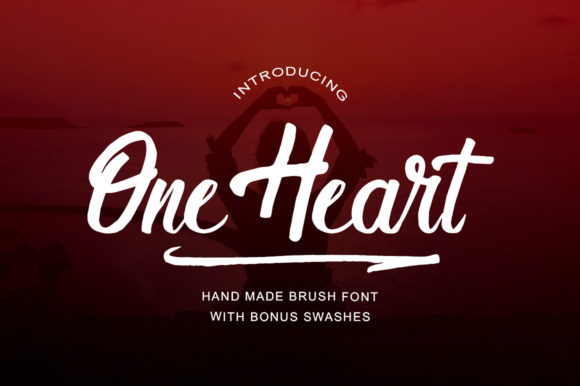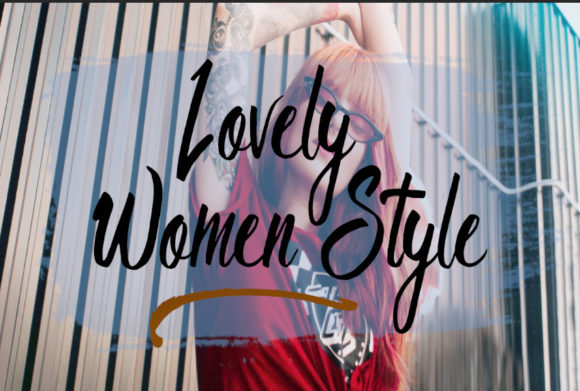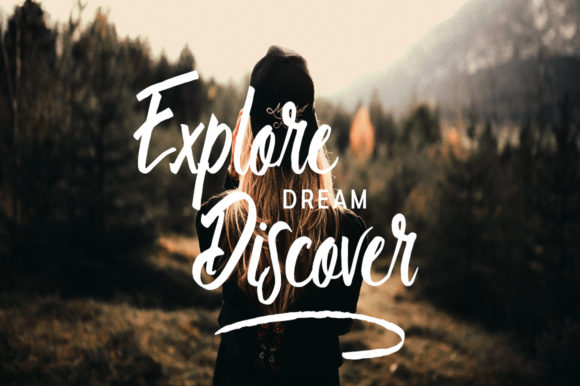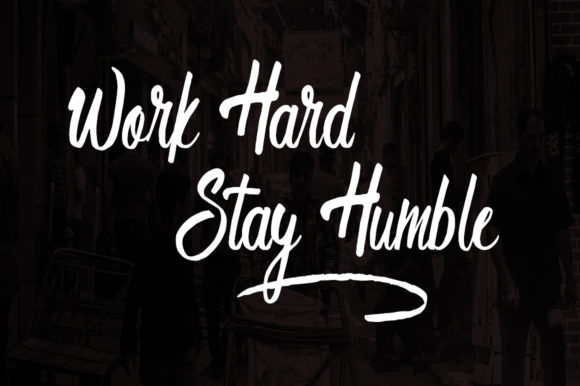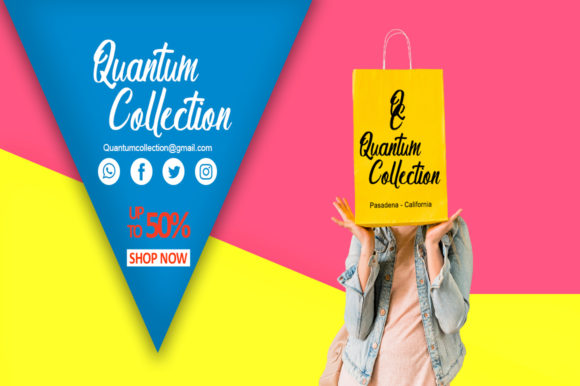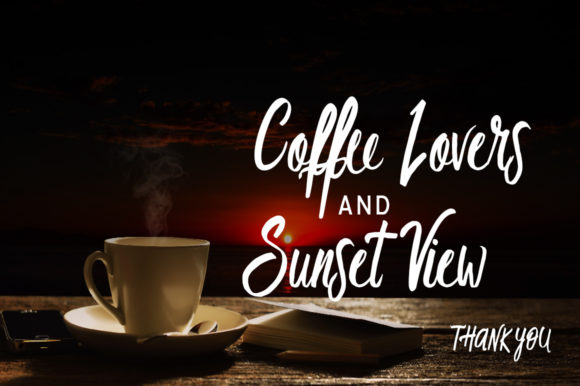
One Heart Font
About One Heart Font
One Heart is a beautiful handwritten font. It is perfectly suited for a wide range of projects, such as posters, logos, t-shirts, signage, business cards, magazines, book covers, wedding invitations, greeting cards,brand projects.